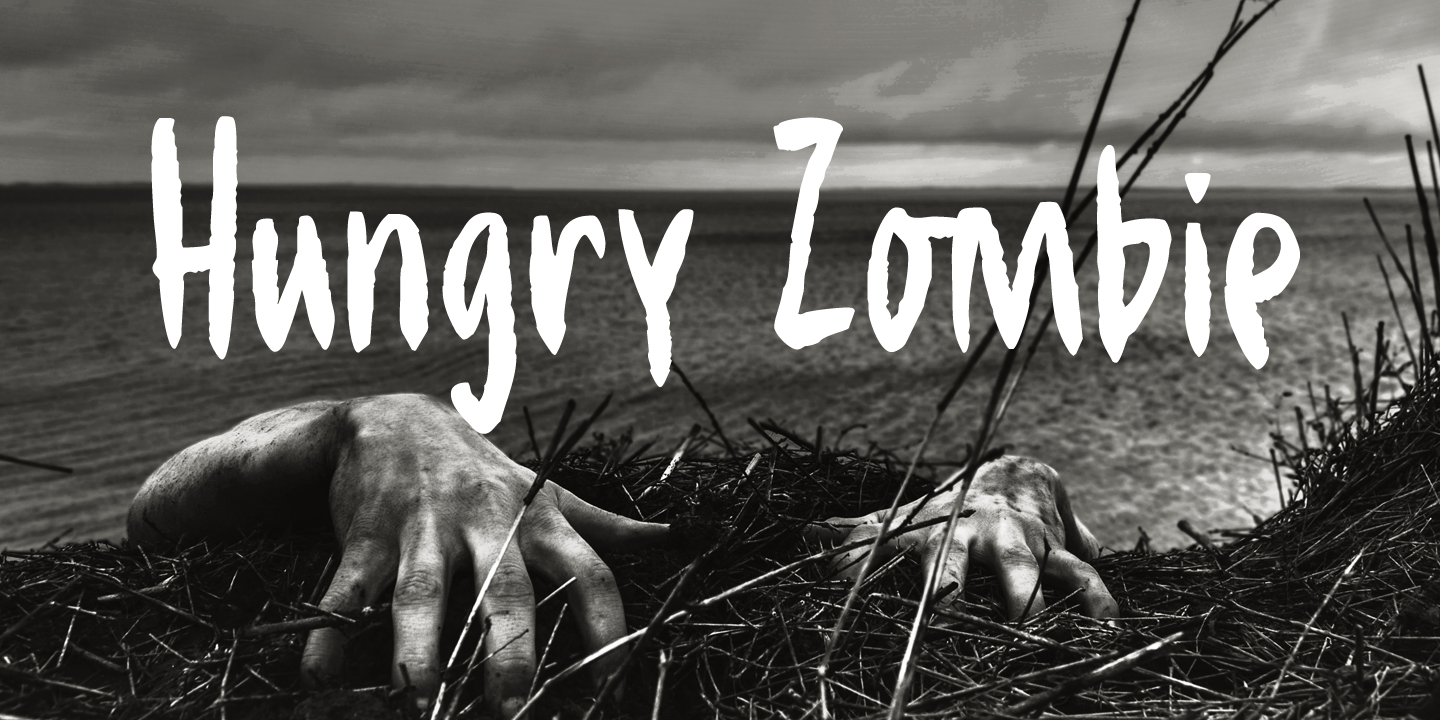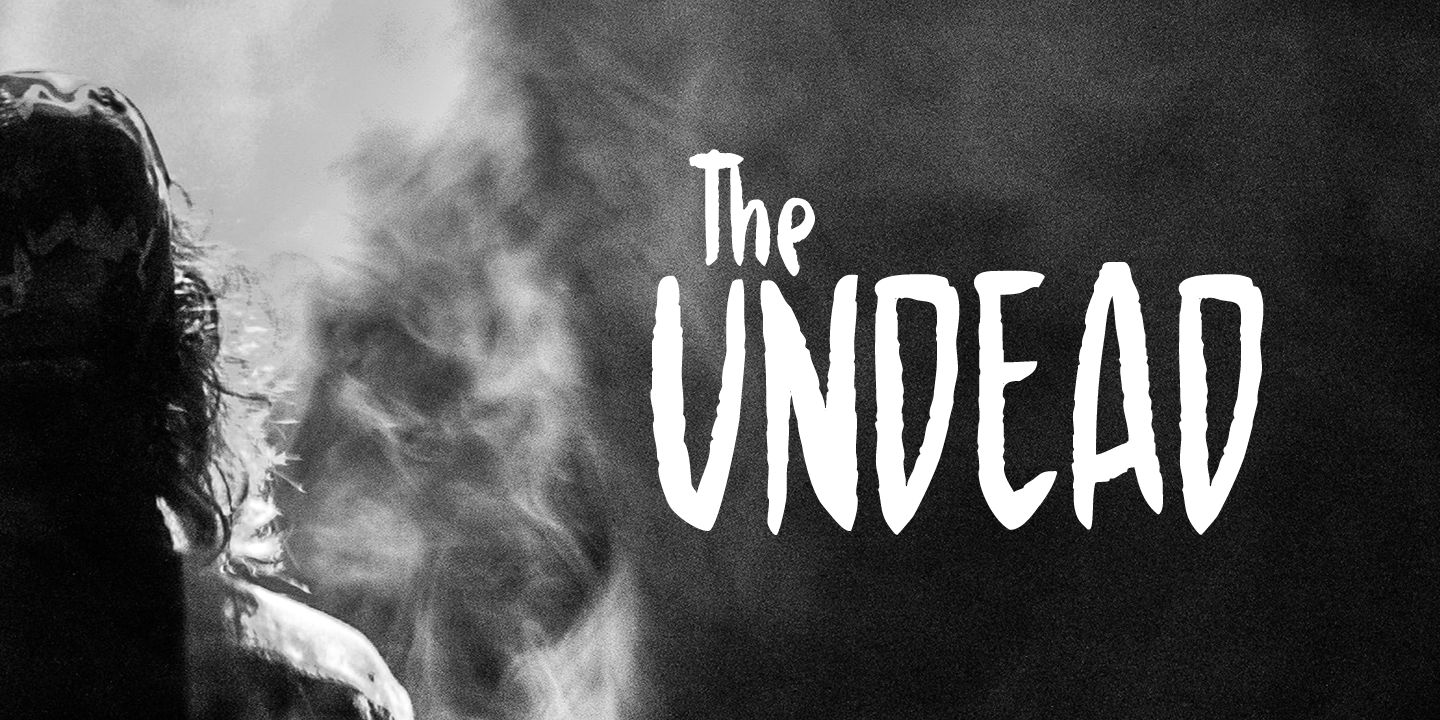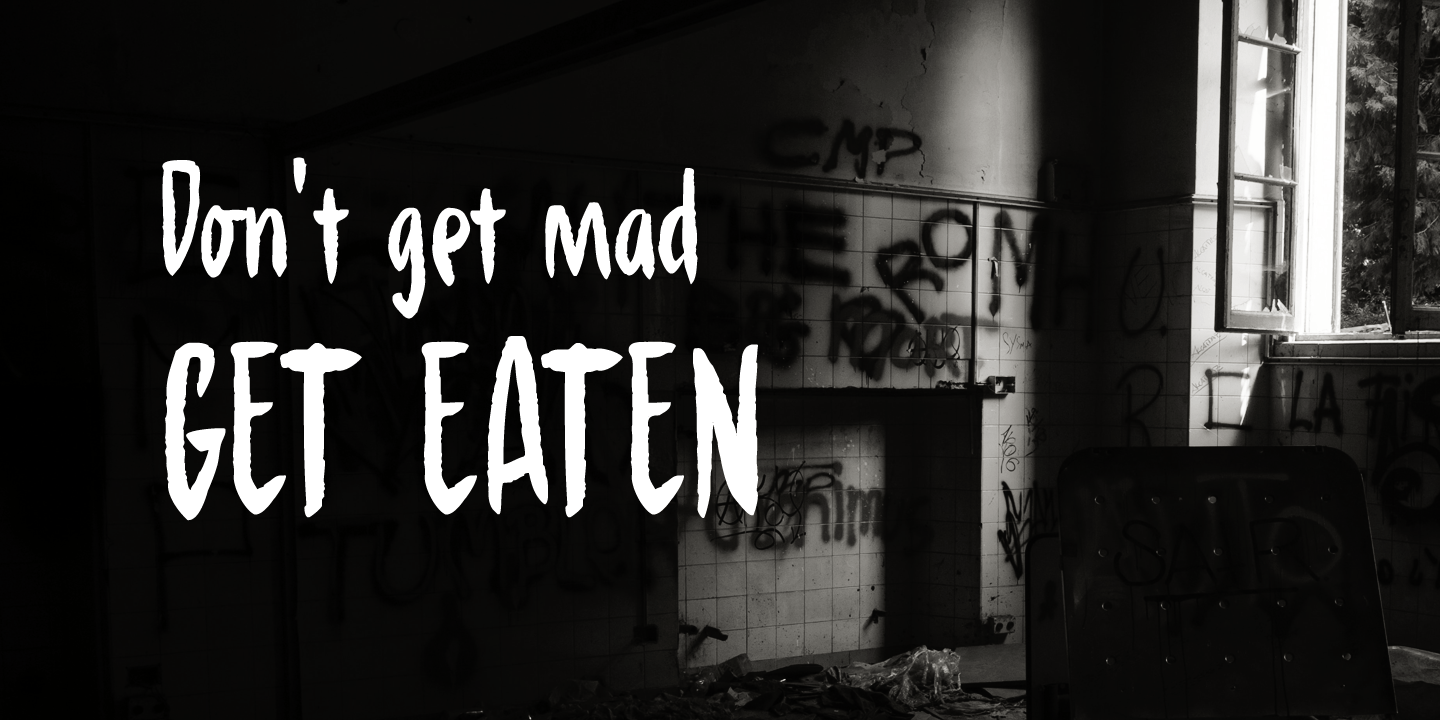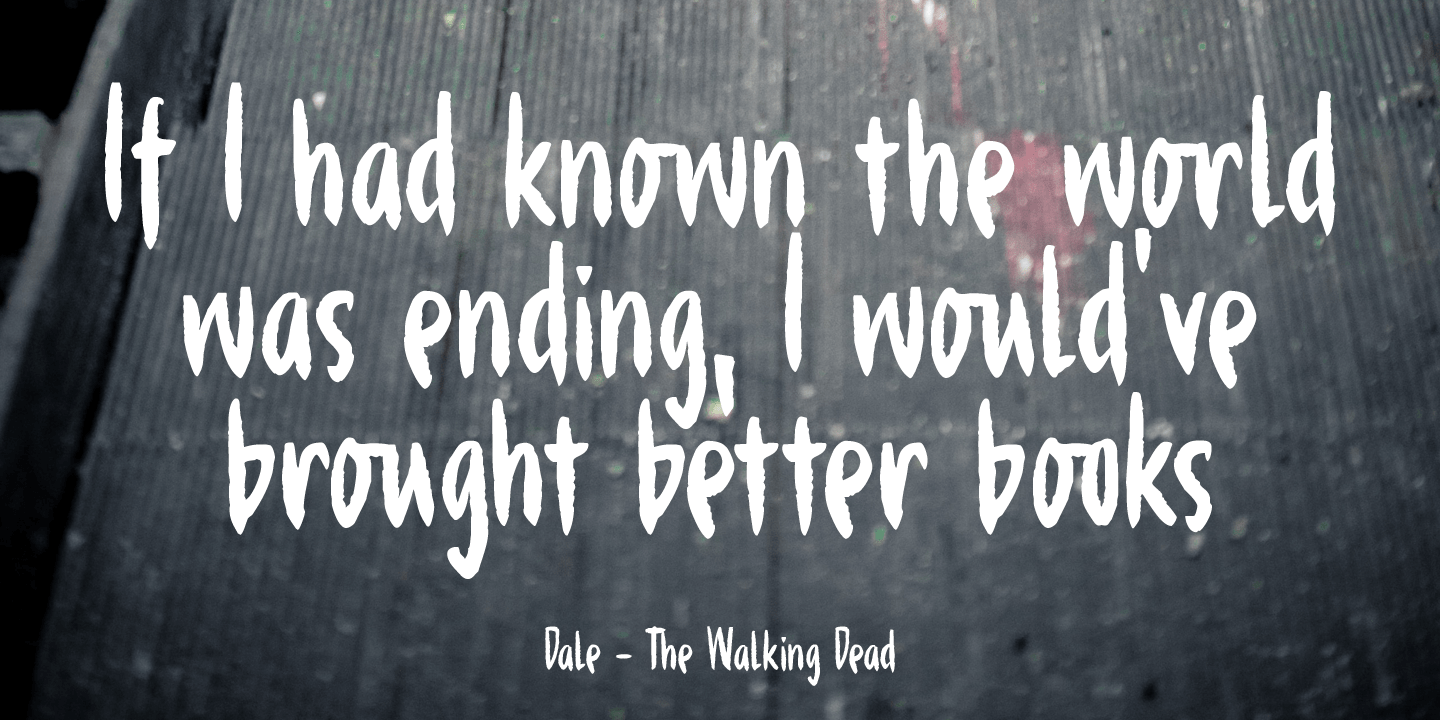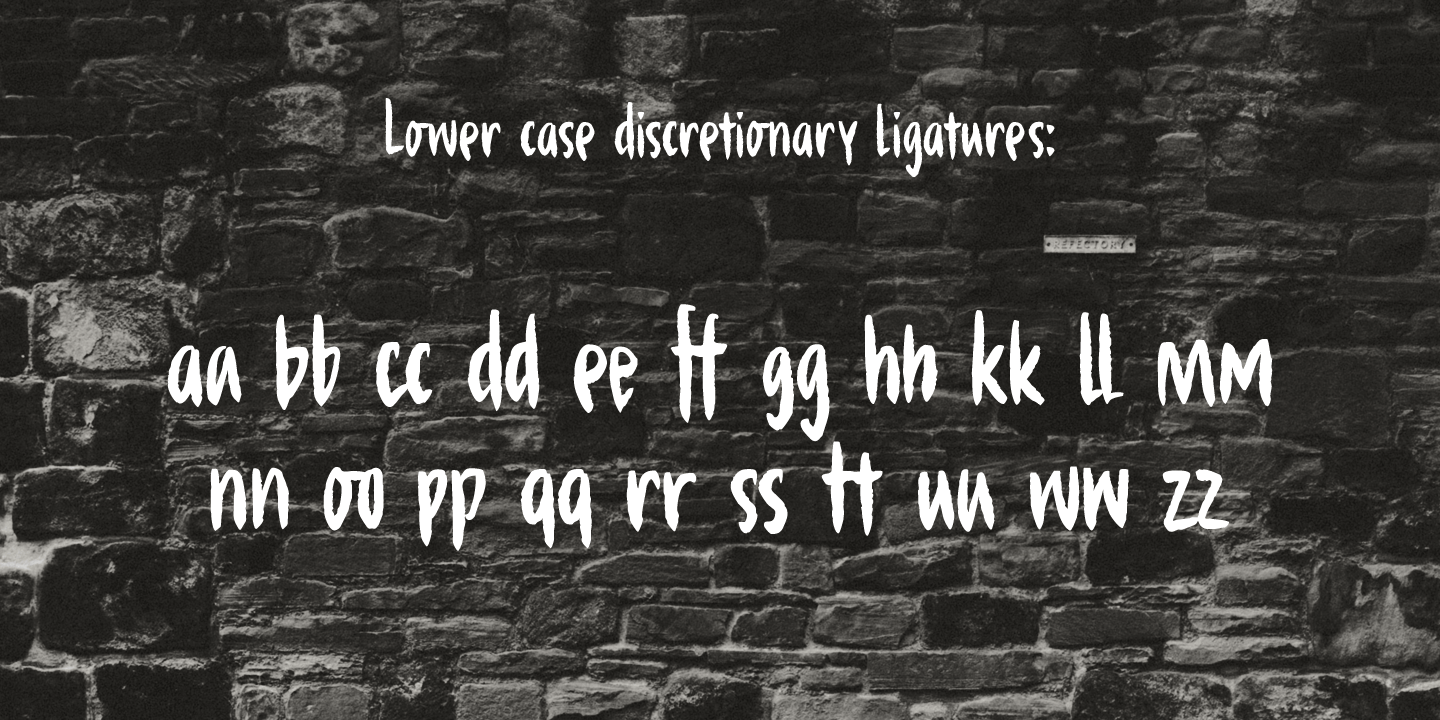
About Hungry Zombie
I've never been one for zombies and all that. I did watch a couple of seasons of The Walking Dead, but after the 2.000.000th zombie got whacked, I had enough. When I made this font, it gave me a zombie feeling. One thing I learned from watching TWD…